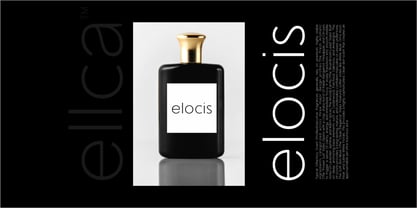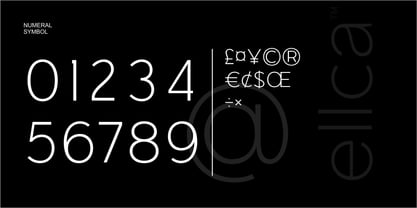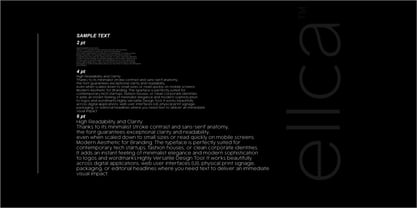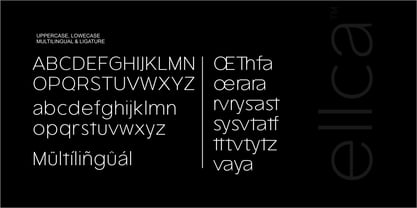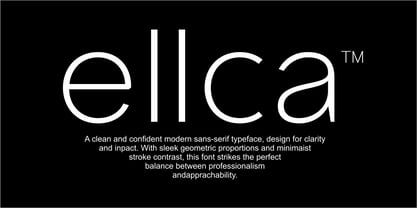
Ellica
by Ceeskiiw
The Ellica Font Family was designed by Cees Kiiw and published by Ceeskiiw. Ellica contains 1 styles. More about this family
ellca™ is a sleek, contemporary sans-serif typeface engineered with a sharp focus on geometric precision and minimalist elegance. Its aesthetic relies heavily on clean lines and circular structures, prominently displayed in the perfectly rounded curves of the letters 'e', 'c', and 'a', contrasted by the sharp verticality of the dual 'l' stems.
ey visual characteristics include:
• Refined Monoline Structure: The font features an almost uniform, low-contrast stroke weight that delivers a light, airy, and high-end feel.
• Exceptional Clarity: Designed with generous counter-spaces and open apertures, it maintains optimal legibility across digital screens and printed media alike.
• Versatile Persona: It strikes a deliberate balance between corporate authority and a warm, modern approachability. This dual nature makes it an outstanding choice for luxury branding, minimalist logotypes, editorial design, architectural layouts, and modern UI/UX interfaces.